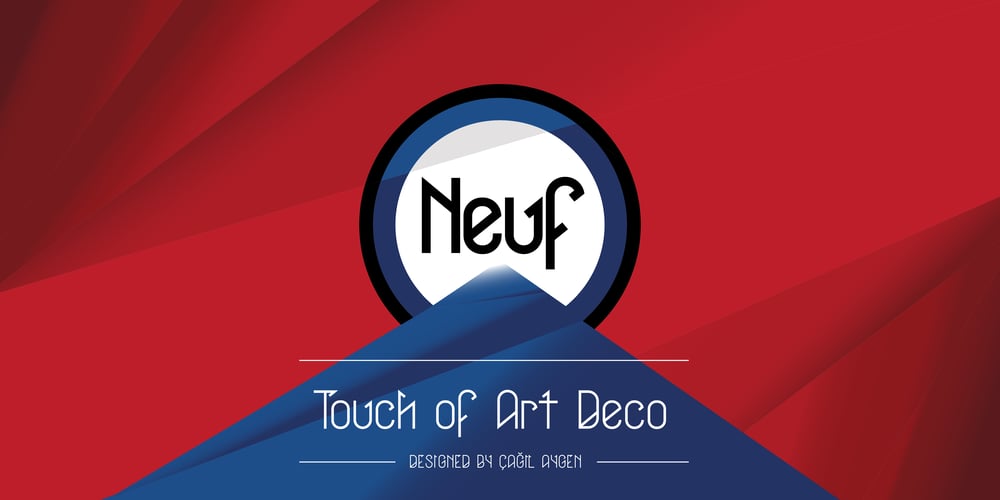
Neuf
Neuf font
Neuf Font Family was designed by Çağıl Aygen and published by Velvele. Neuf contains 5 styles and family package options. Neuf family is an experimental search for new Art Deco letterforms, which are still easy to read and generate some unexpected attention.The distinguishes Neuf favoured by Art Deco and its predecessor Art Nouveau with a modern design touch. The style of Neuf is characterized by geometric shapes and craft motifs with Machine Age imagery and materials.